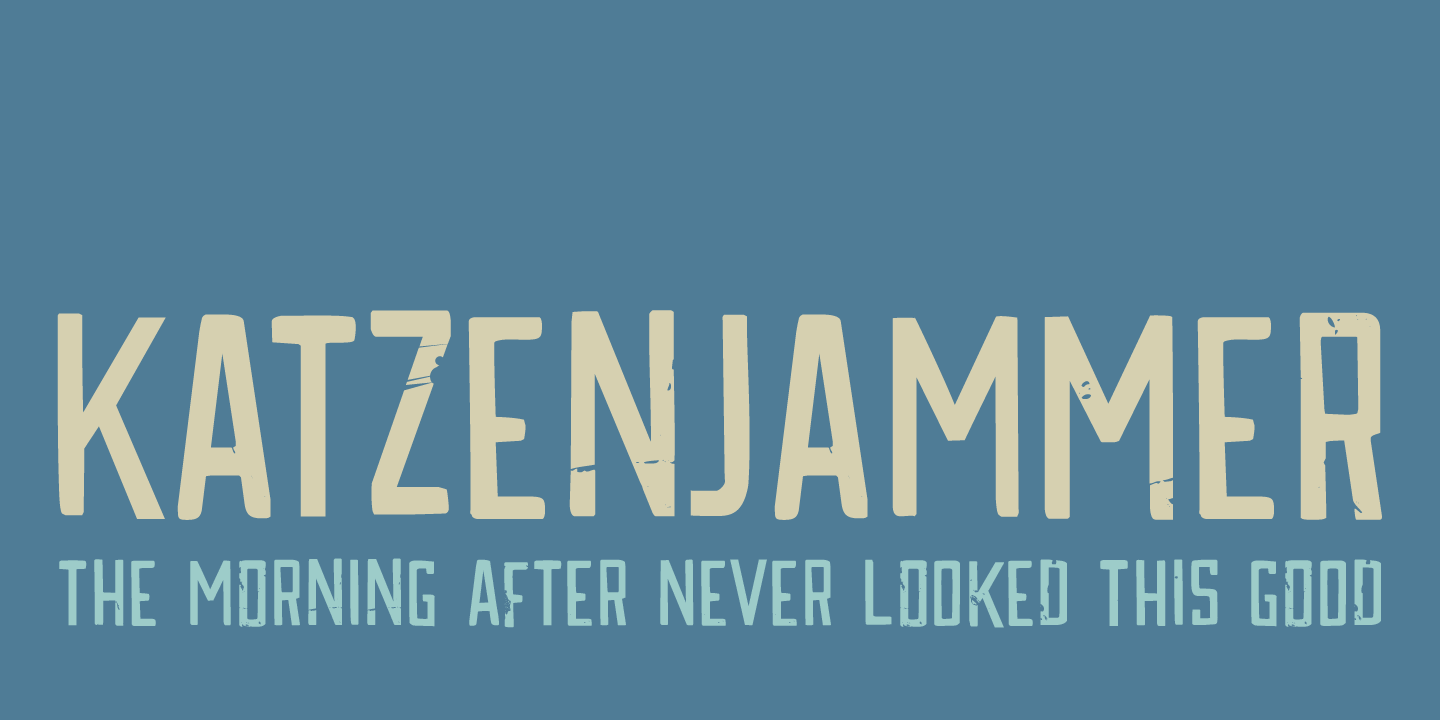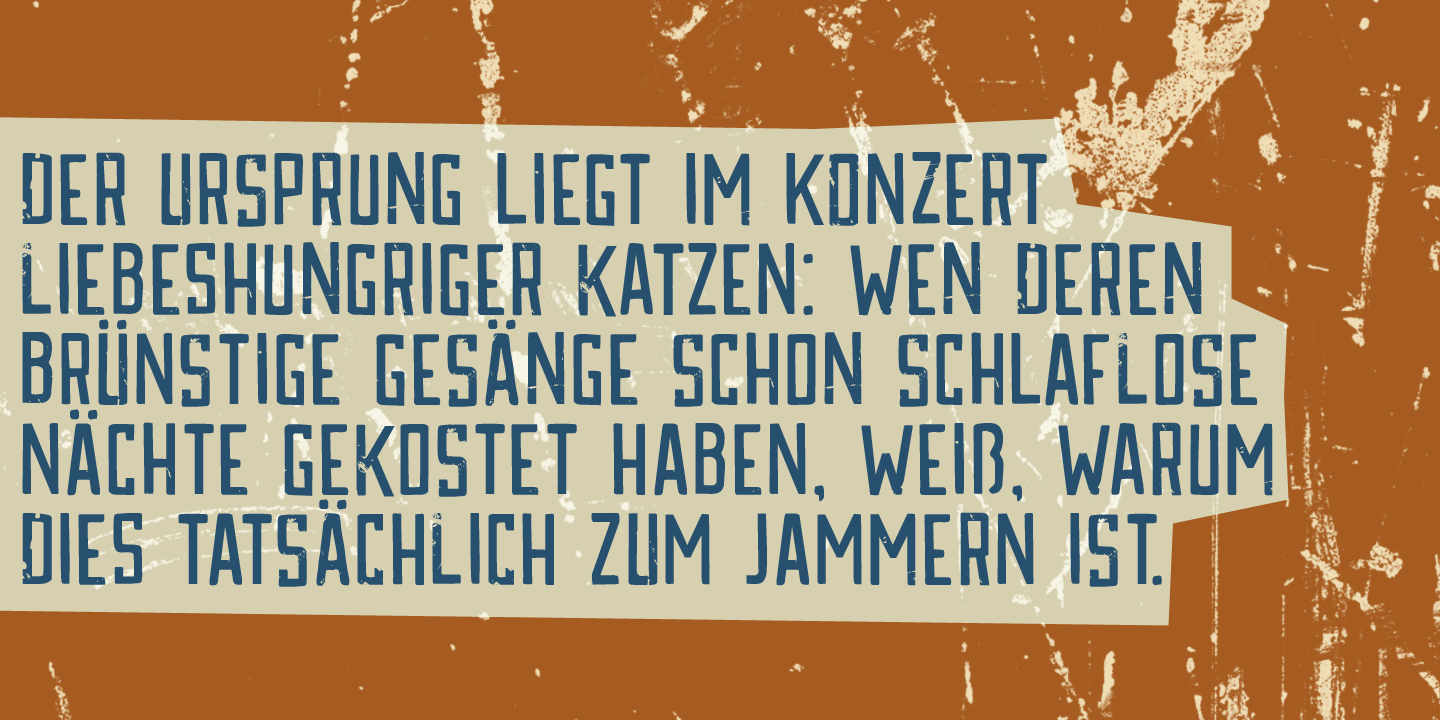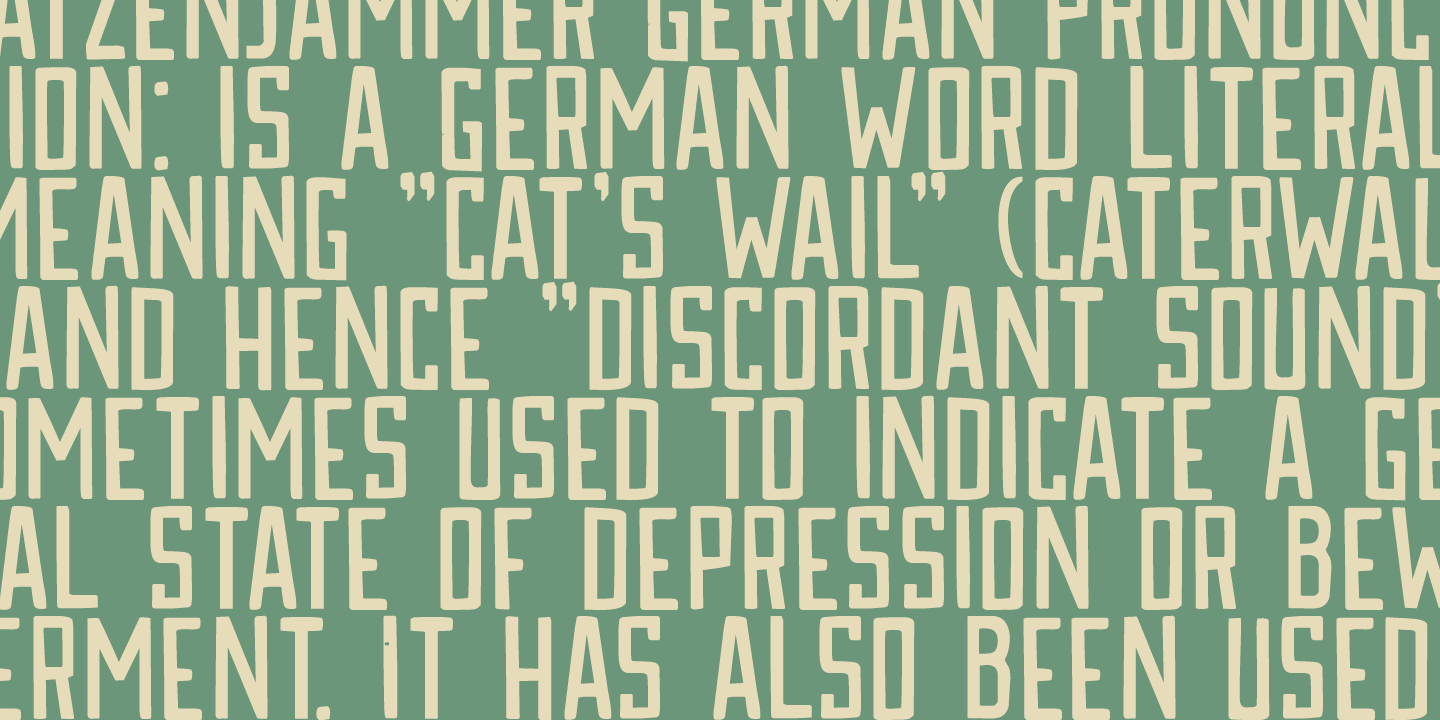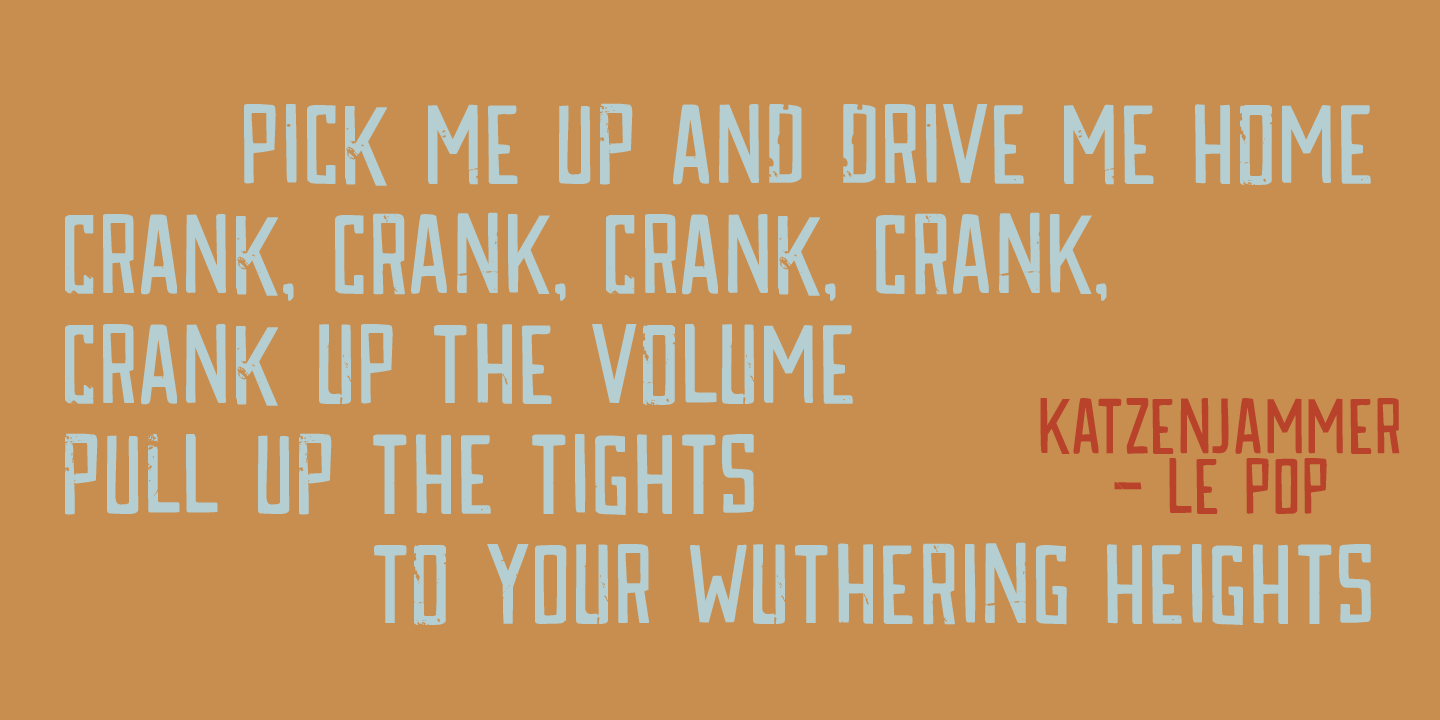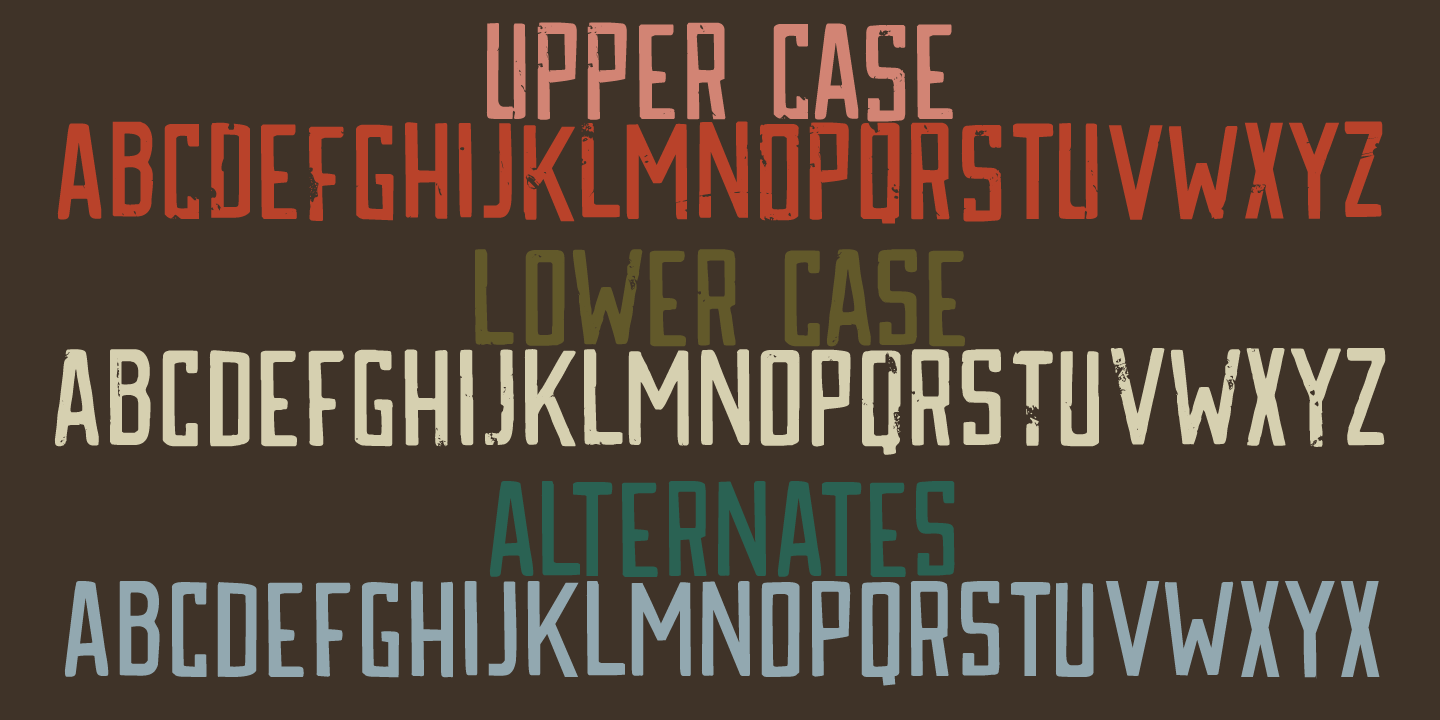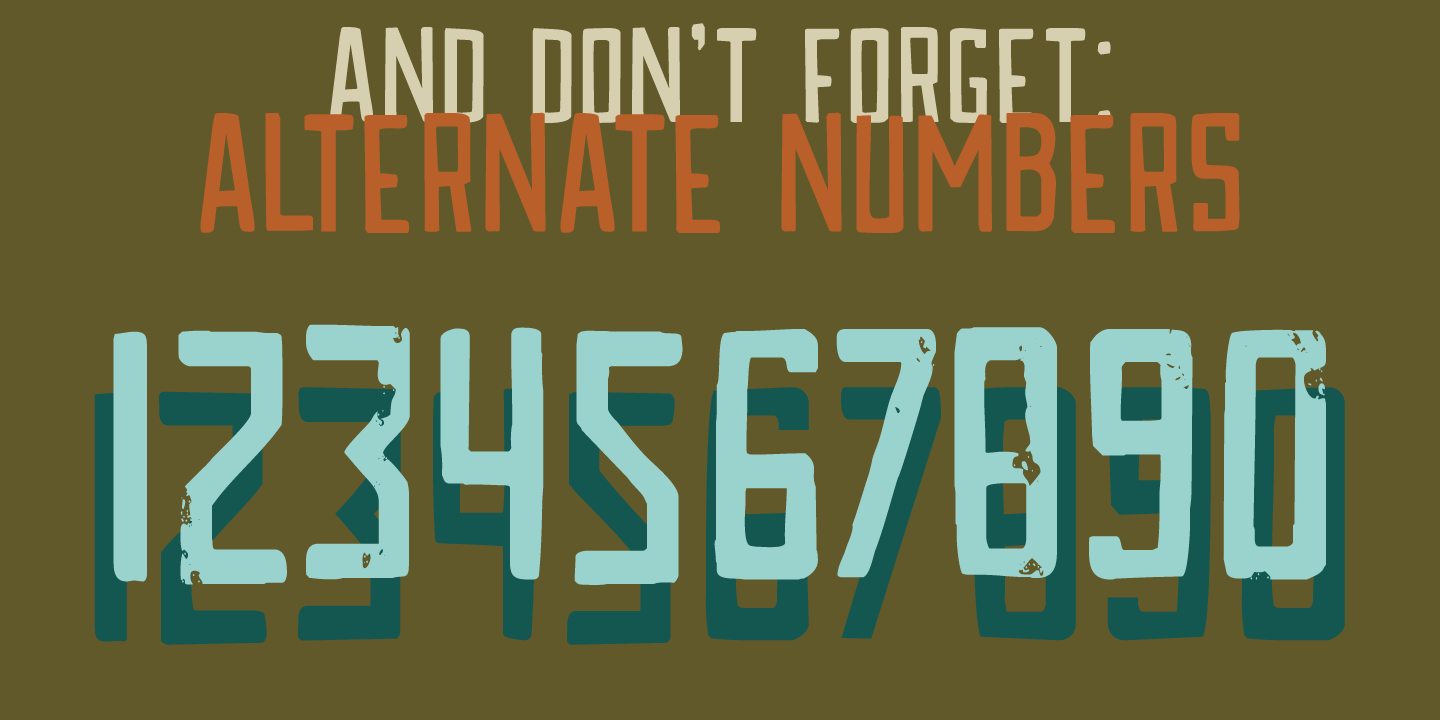
Katzenjammer
Katzenjammer is a German word meaning ?Cat's Wail? - it is used to describe a hangover. Katzenjammer font is a slightly eroded, squarish typeface, which would be ideal for headlines, packaging, posters and websites. This all caps font comes with different upper and lower case glyphs and a non-eroded set of alternates for the lower case - for those who like their alphabet nice and neat.